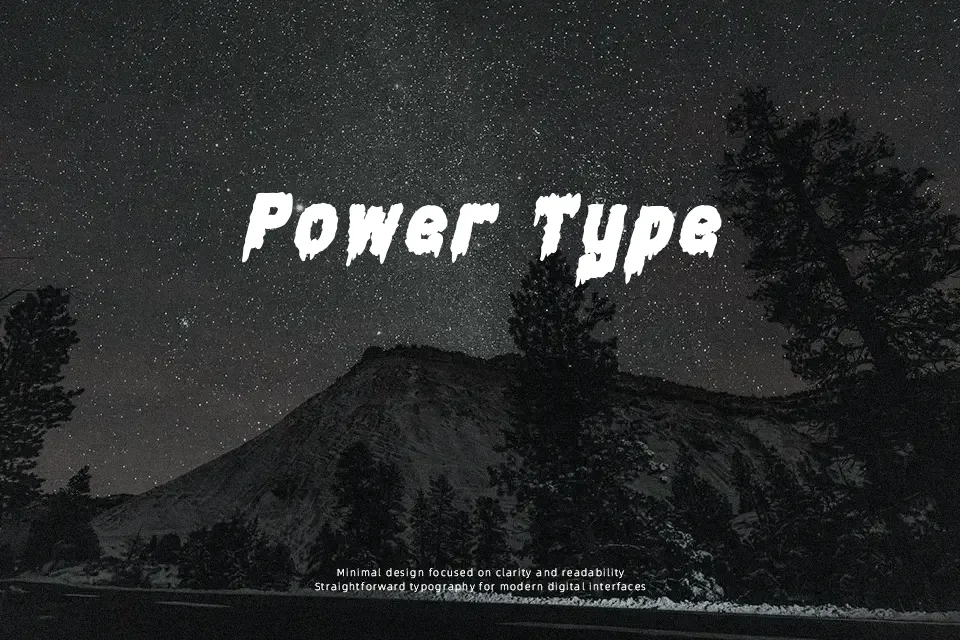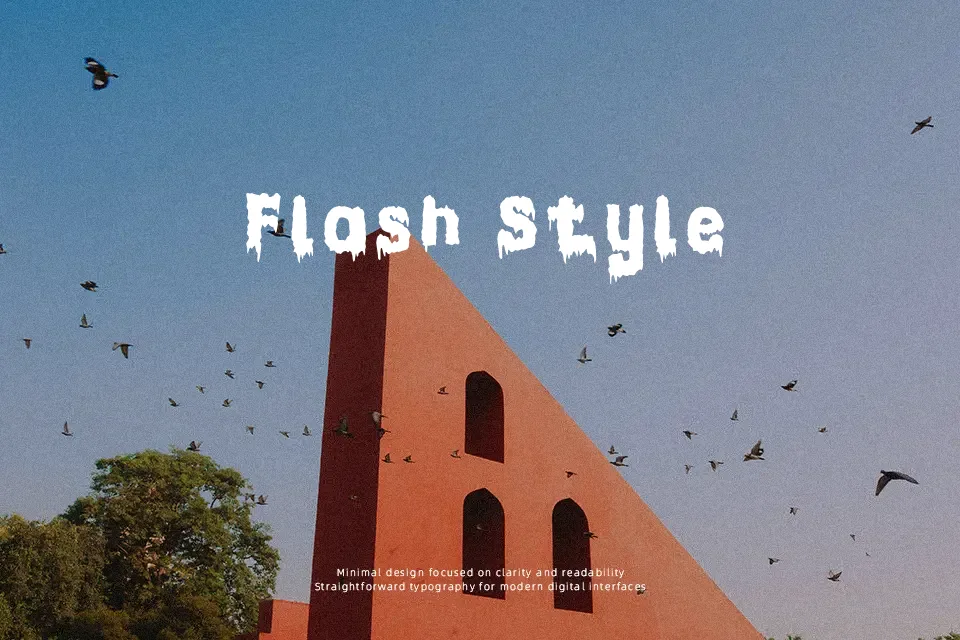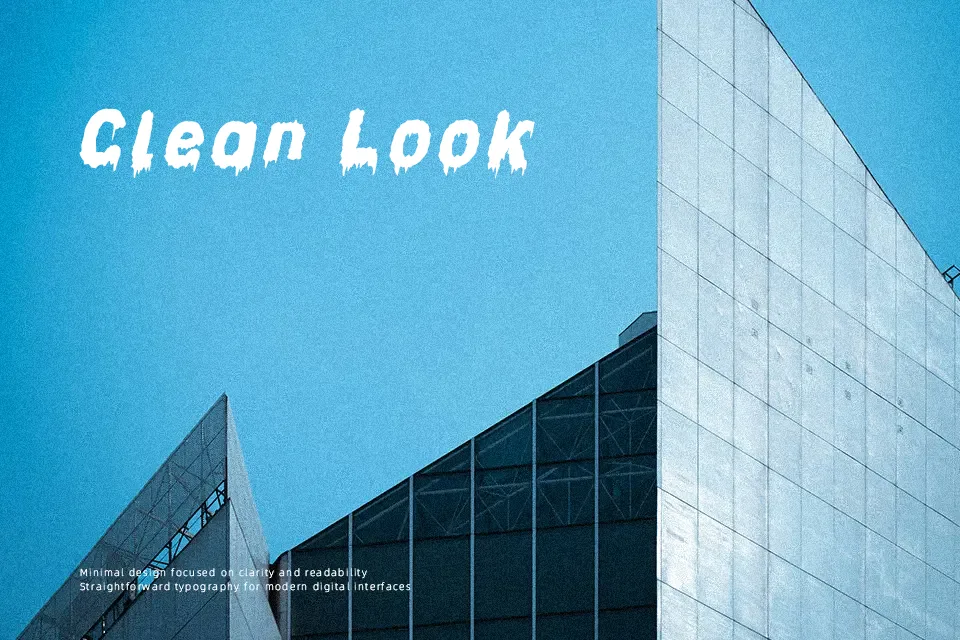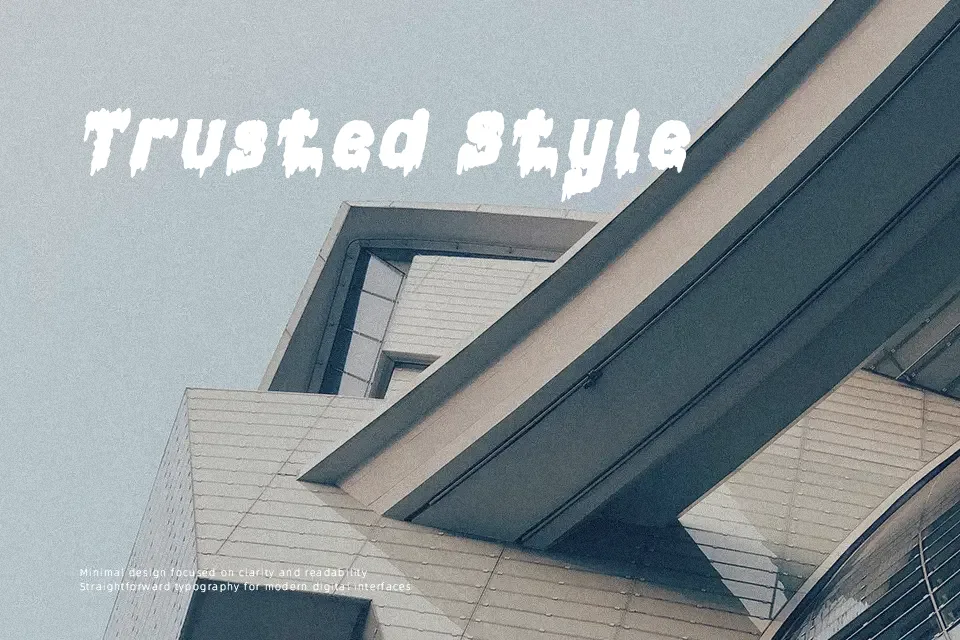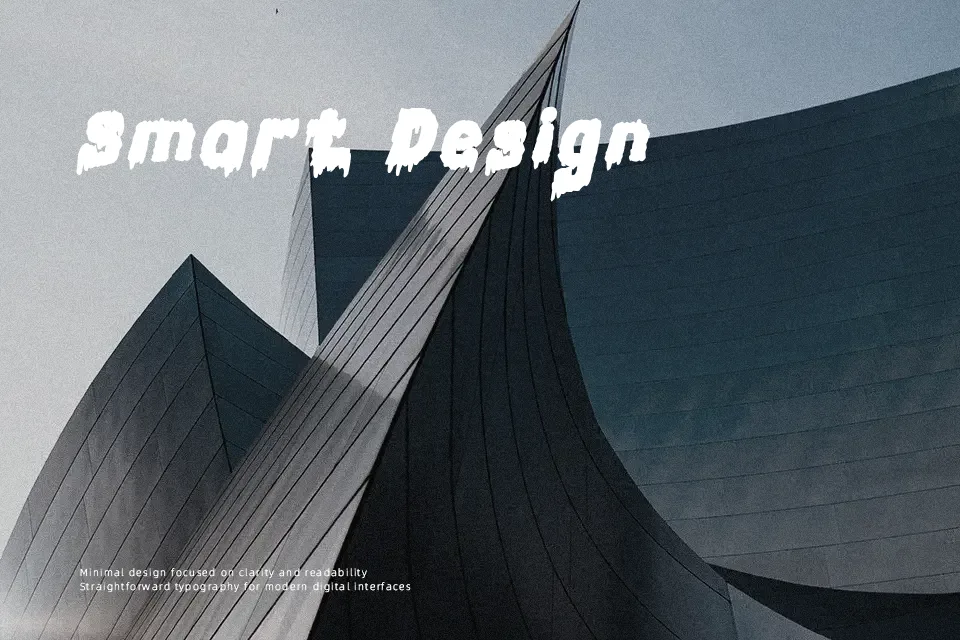
Candle Light Font
Designed by weknow
Candle Light leans into a gothic, decorative look, with jagged curves, high contrast strokes, and tight, irregular spacing that suggests melted wax and flickering shadows. The letterforms are bold and condensed, so they command attention in short phrases rather than long reading lines. It works well on horror or Halloween posters, escape room branding, themed event tickets, or book covers where you want something dramatic without looking too polished. For body text, minimalist branding, or small UI labels, the busy details and dense texture quickly become tiring, so it is better kept for standout headlines and logotype experiments.
Halloween or horror posters and covers
Dark fantasy or gothic event titles
Logotypes for spooky or occult-themed brands
Themed social media graphics with short headlines
Body copy or long paragraphs
Clean corporate or minimalist branding systems
Tiny captions, UI labels, or accessibility-focused text
Perfect for branding, halloween, and headline, with a creative and decorative style.